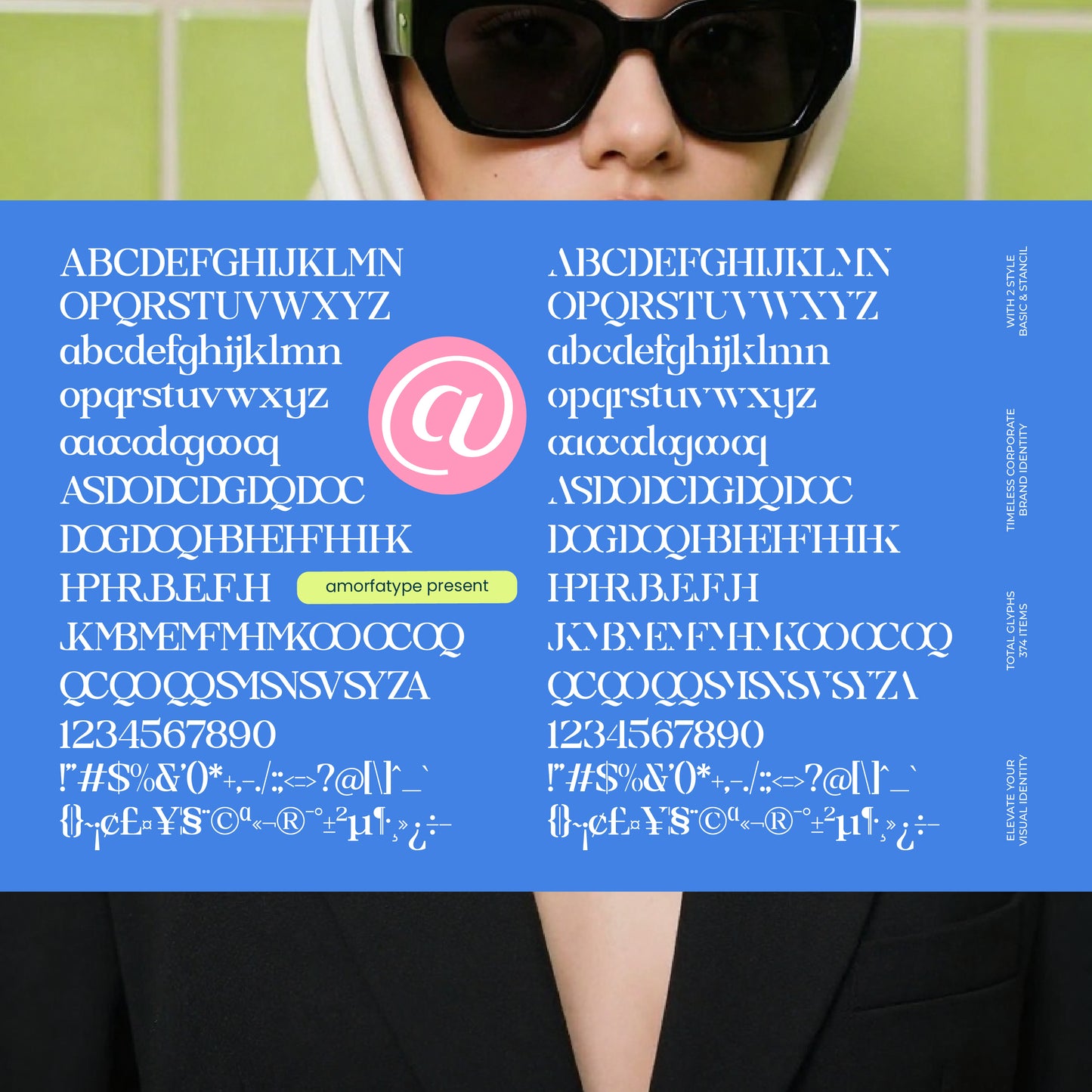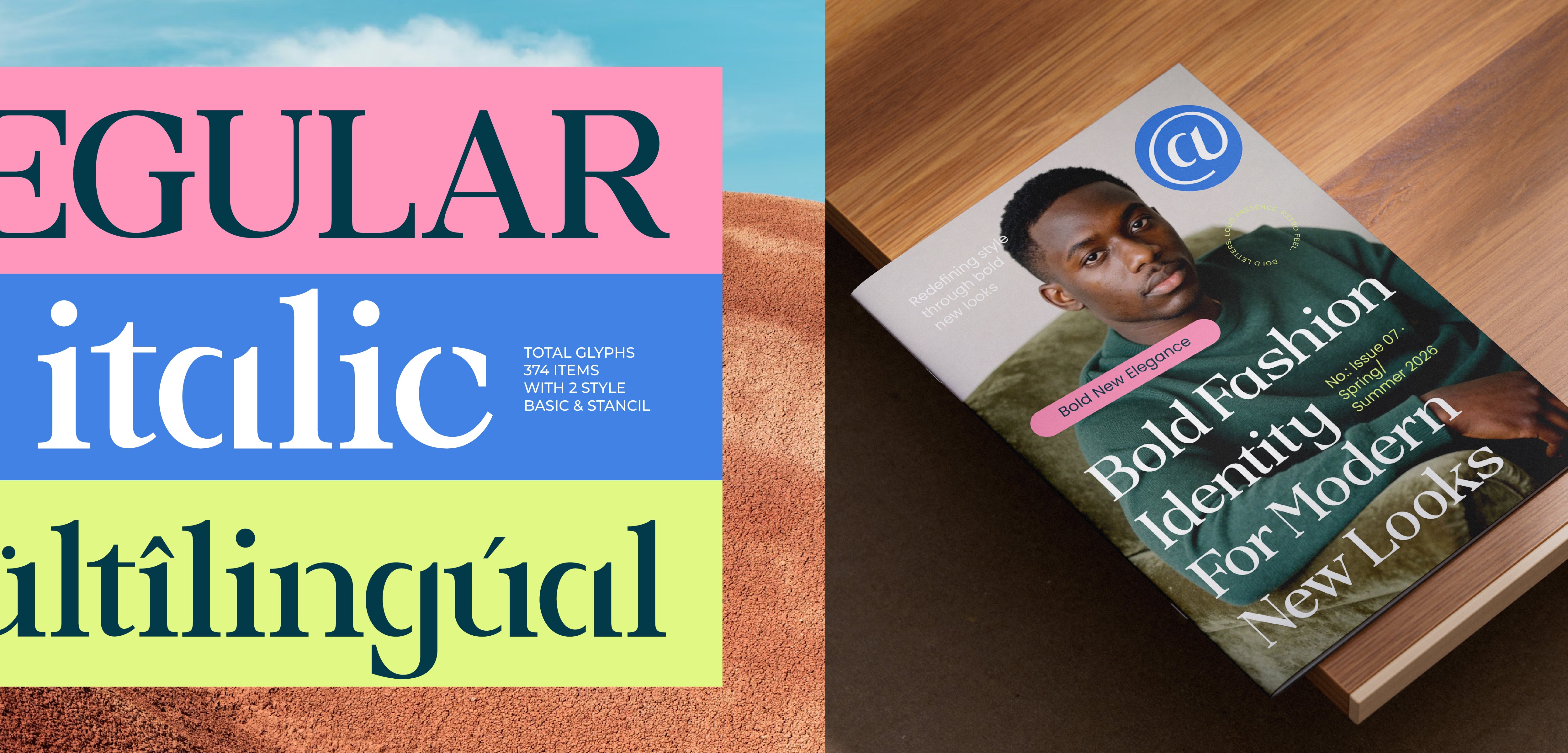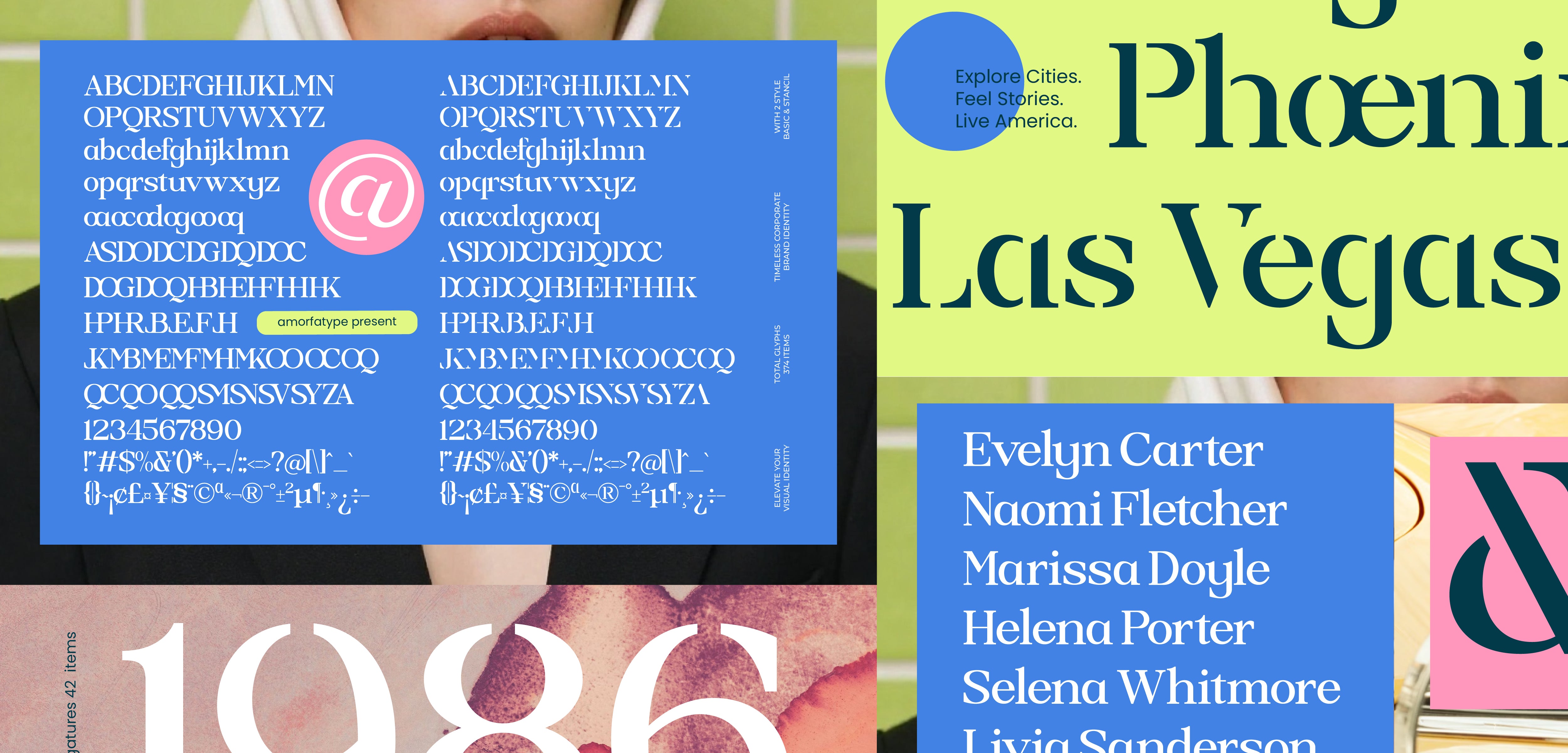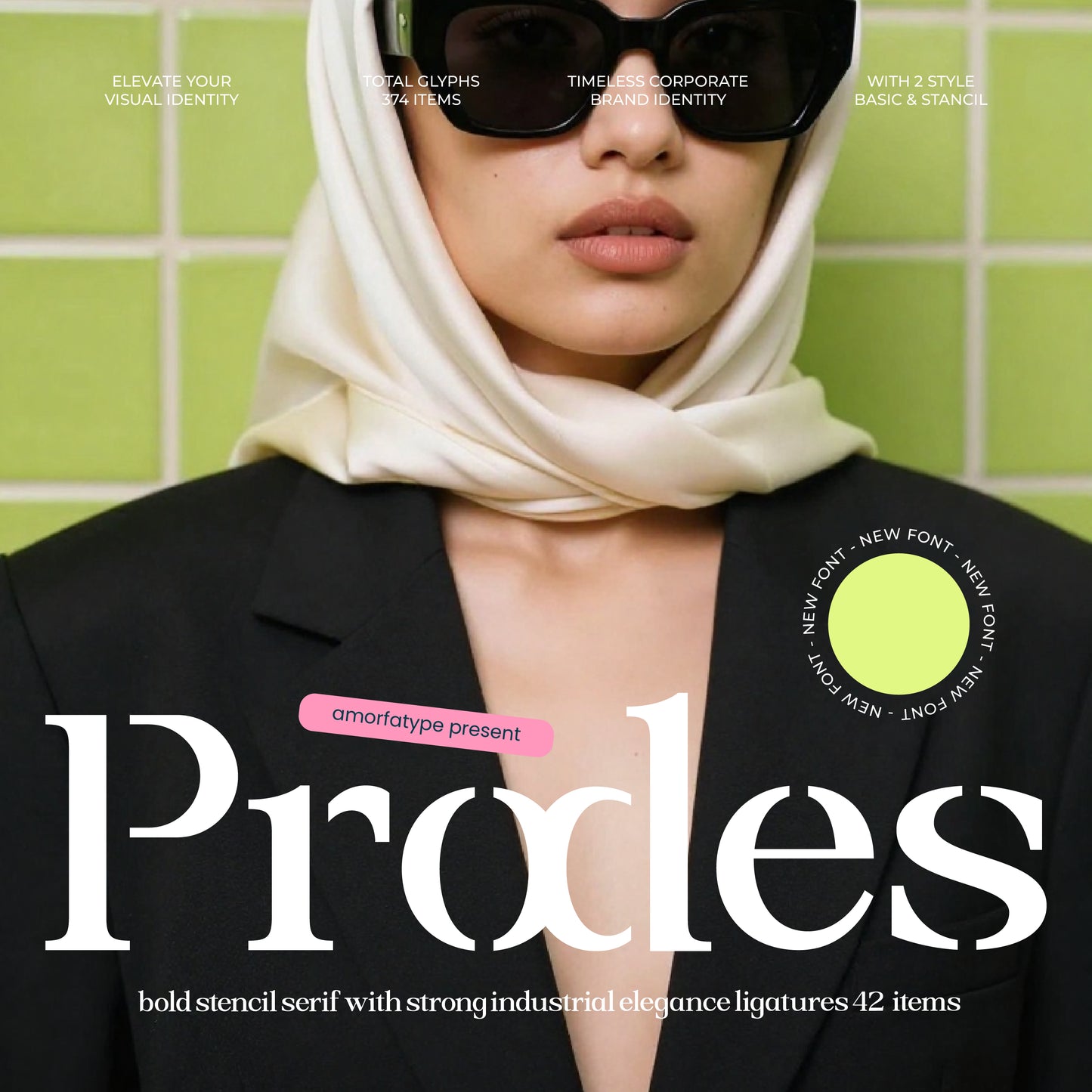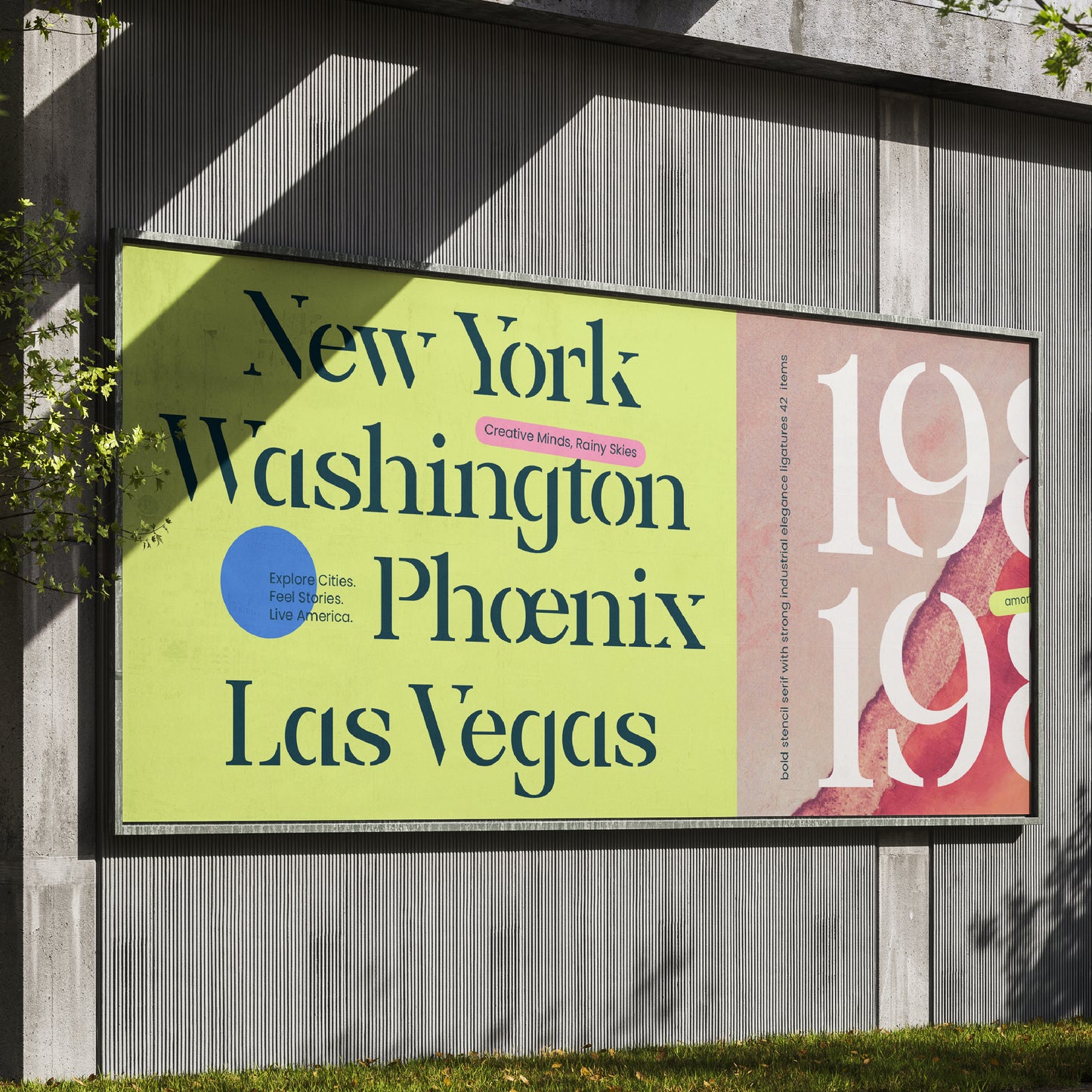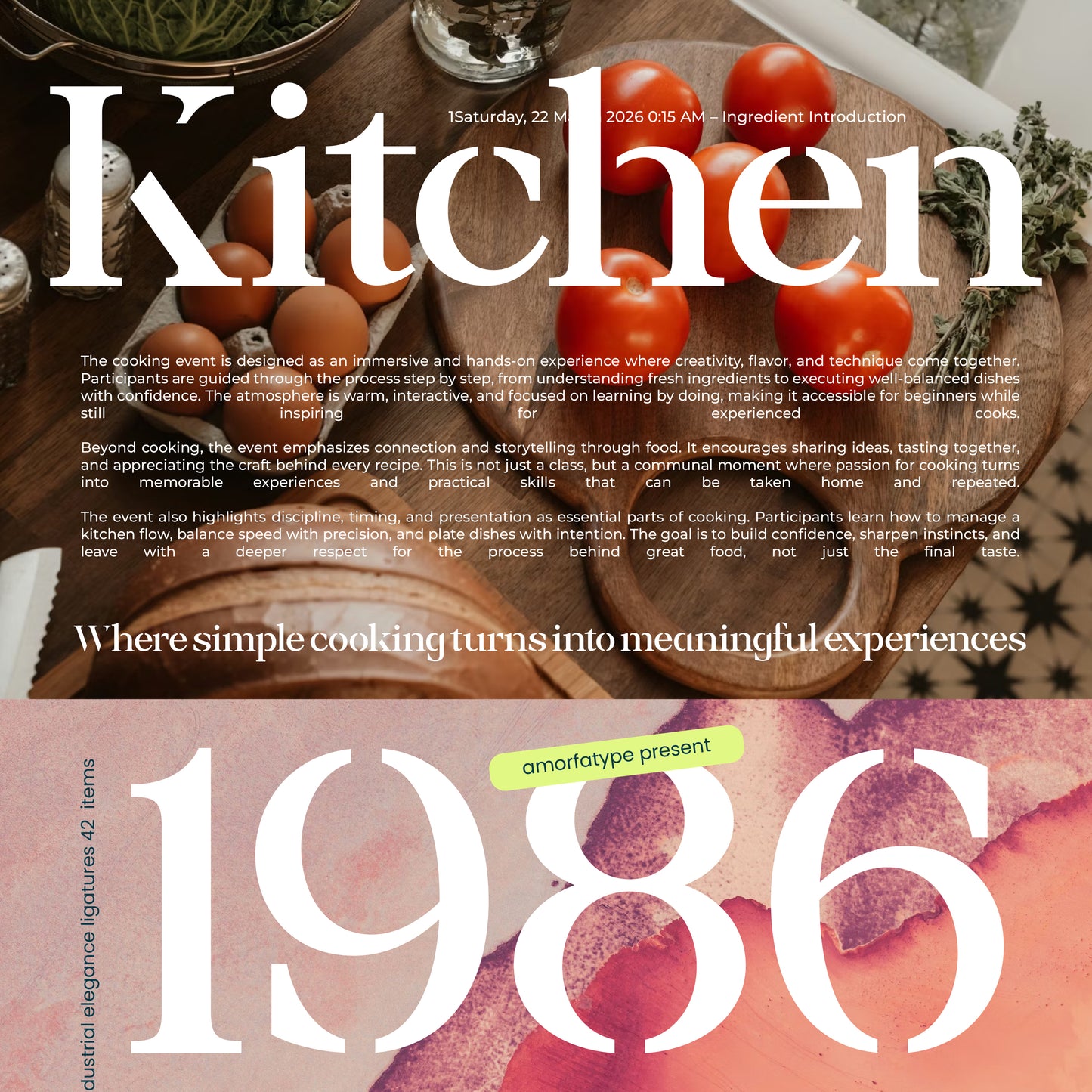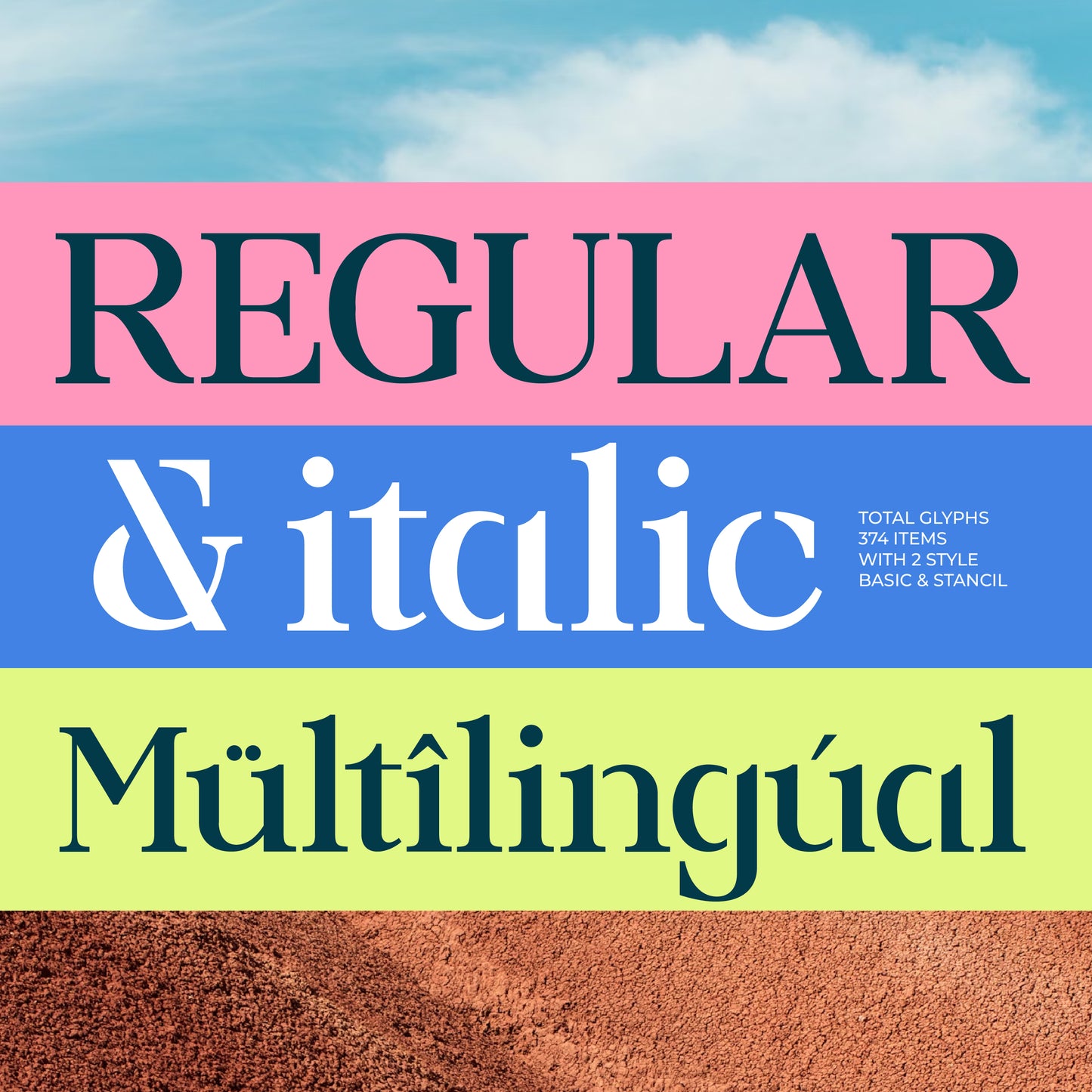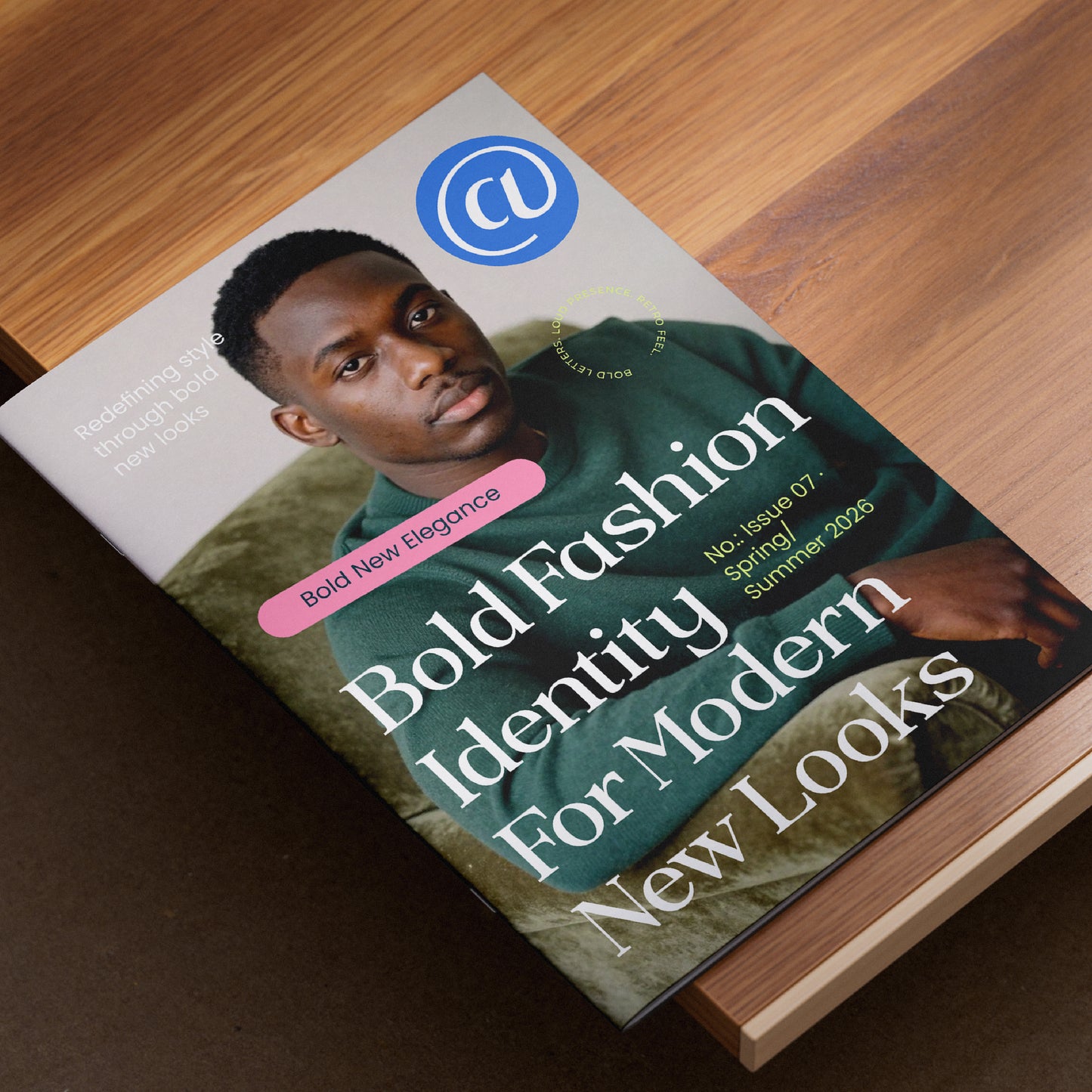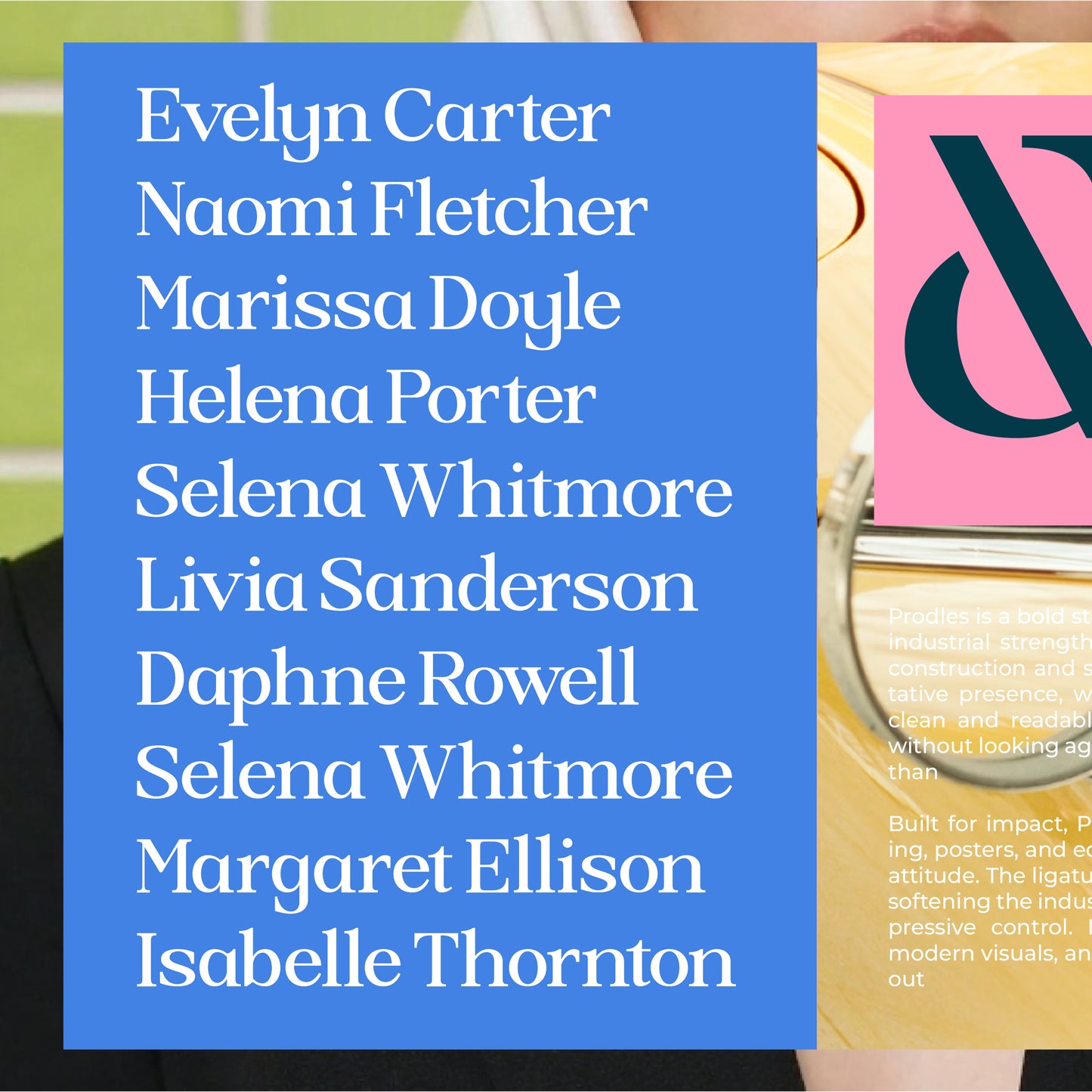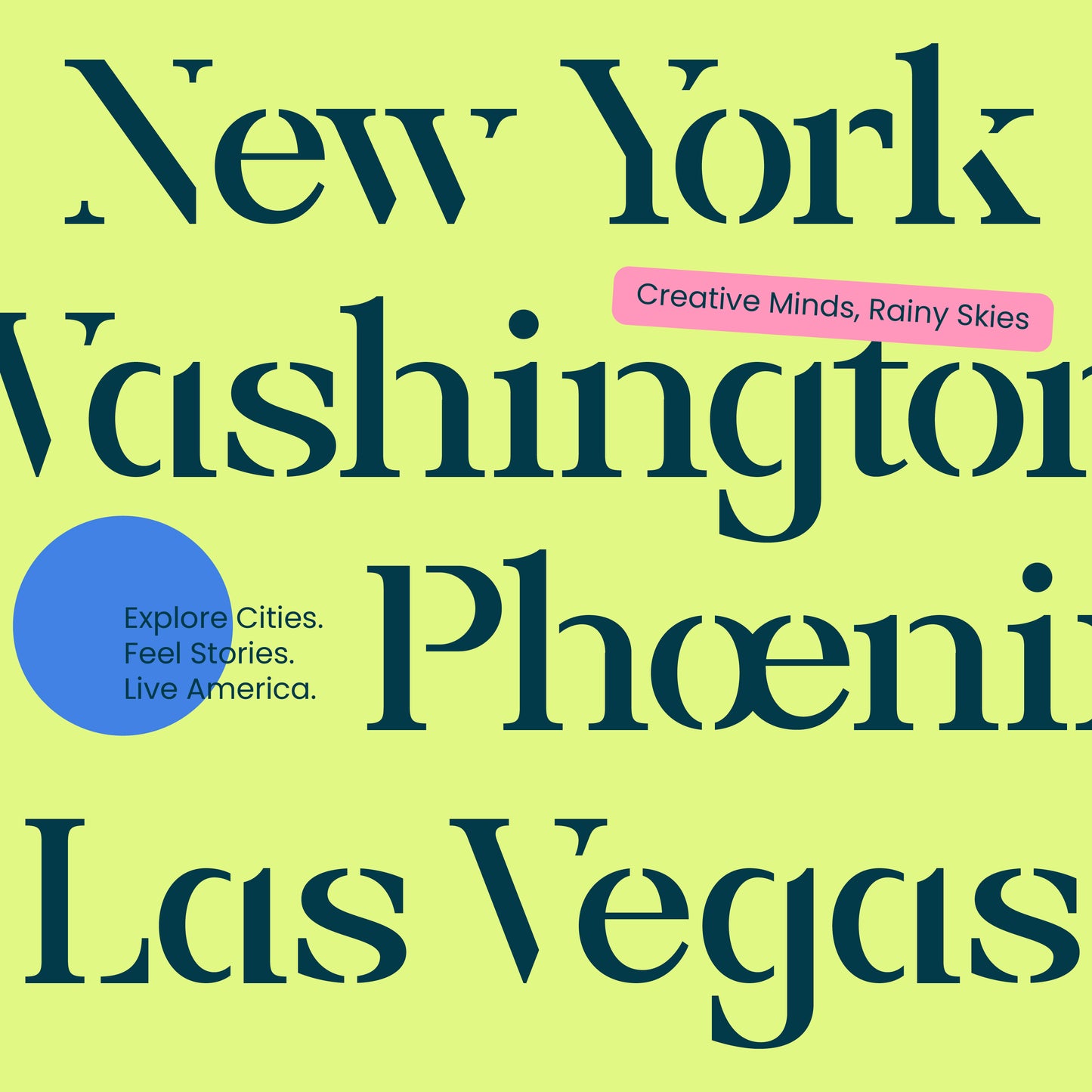
Prodes
Amorfatype
Prodes is a stencil serif font combining strong serif structures with distinctive stencil cuts. Prodes delivers a unique balance of vintage character, industrial influence, and modern sophistication.
— TOTAL GLYPHS: 374
— MULTILINGUAL SUPPORT
— NUMBERS & PUNCTUATION
— LIGATURES & STYLISTIC ALTERNATES